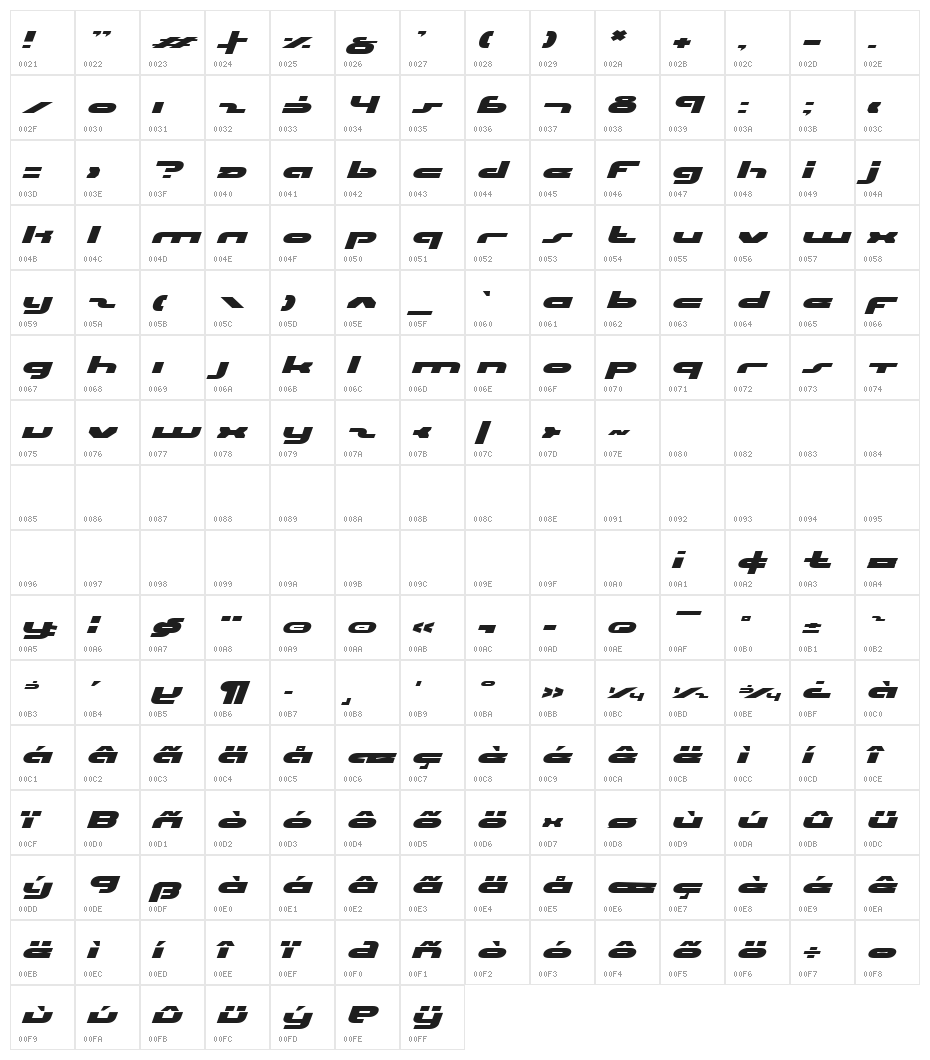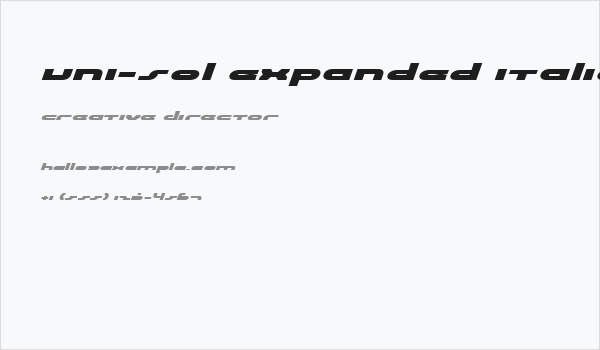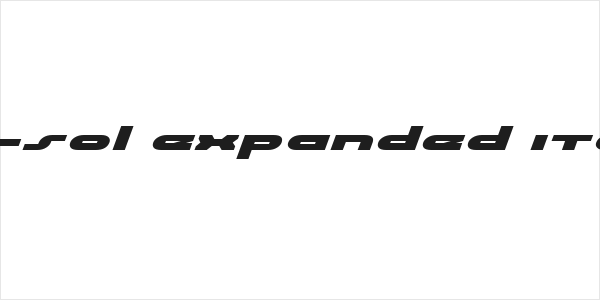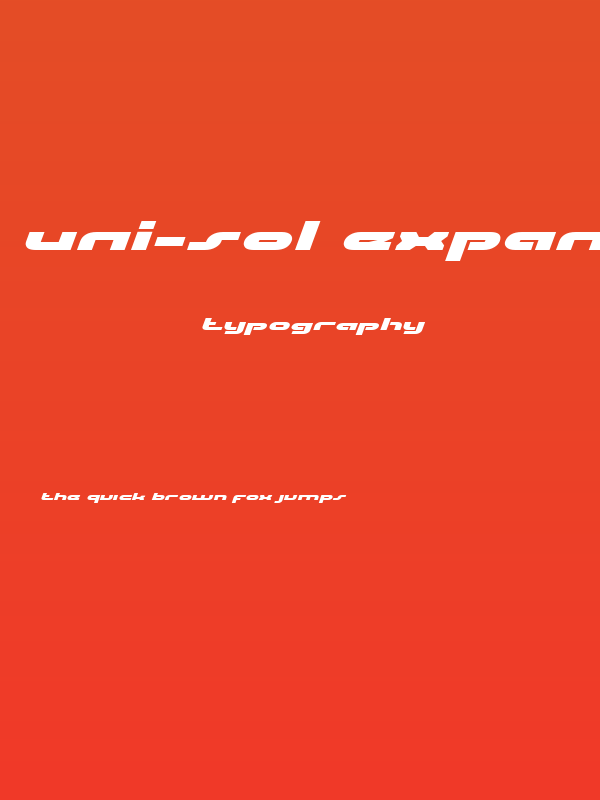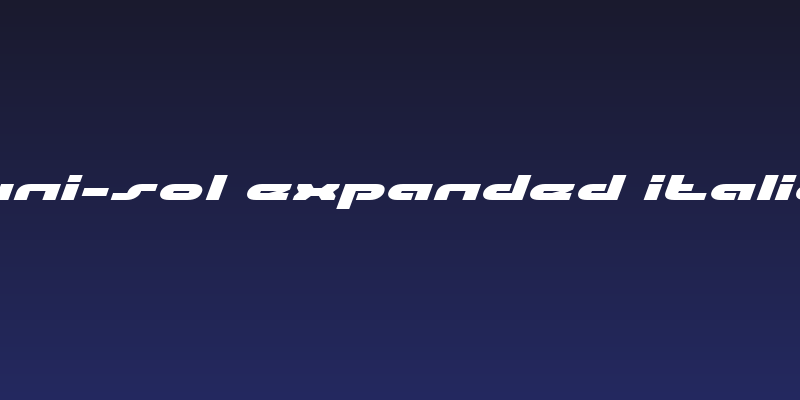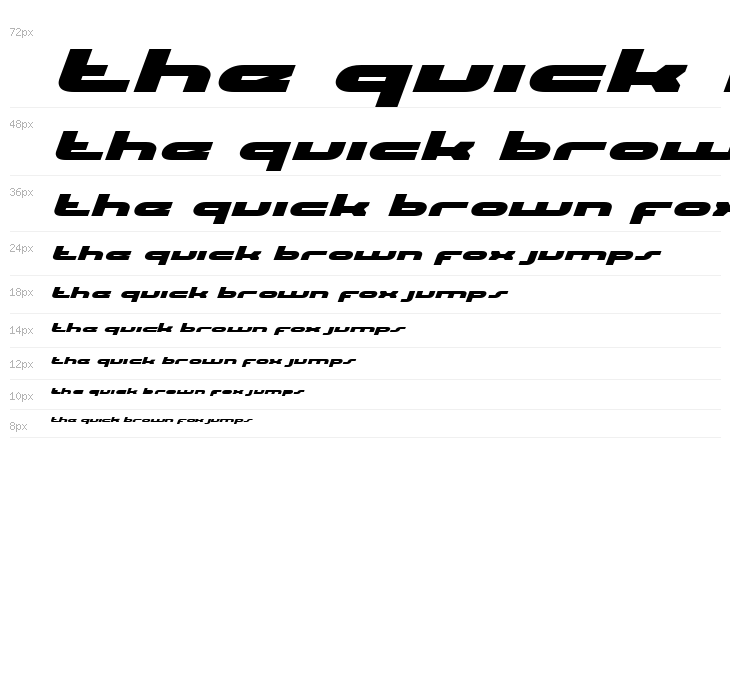
uni-sol expanded italic Font
uni-sol expanded italic Description
This font features a dynamic and futuristic style with a distinctly italicized slant. The characters are bold and expanded, giving them a strong presence on the page. The strokes are consistent in thickness, providing a uniform appearance across all letters and numbers. The design incorporates sharp angles and smooth curves, creating a sleek and modern aesthetic. The spacing between characters is relatively tight, enhancing the compact and cohesive look of the text. This font is particularly suitable for projects that require a modern and energetic feel, such as technology branding, sports team logos, or dynamic advertising materials.
| Use Case | Logos, Headlines |
| Proposed Projects | Ideal for technology branding, sports logos, dynamic advertising, and modern design projects. |